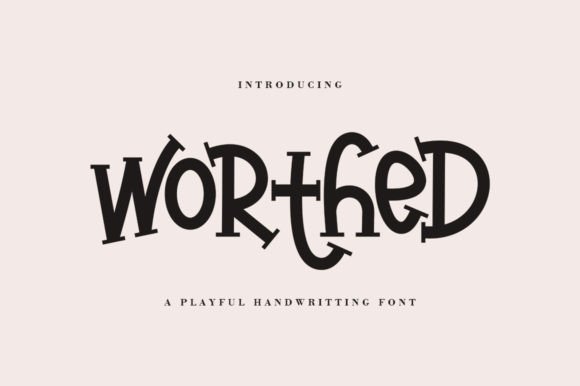
Welcome to the world of Worthed Font, a script typeface that's anything but ordinary. Its whimsical, inviting appeal is sure to make your designs sing.
With its sweeping strokes, charming curves, and a touch of elegance, Worthed is a visual treat. Each character dances across the page, oozing personality and character. It’s perfect for adding a splash of magic to your creative projects.
Dive into a world where your words come alive! Worthed is the perfect font for invitations, greeting cards, packaging, and branding. Its playful charm is sure to leave a lasting impression.
Oh, and did we mention its versatility? Worthed is like a chameleon, blending seamlessly with any background, especially red. Its vibrant energy is bound to make your designs pop!
So, why settle for ordinary when you can embrace the extraordinary? Let Worthed be your muse, your companion in creativity, and your passport to a world of captivating designs.